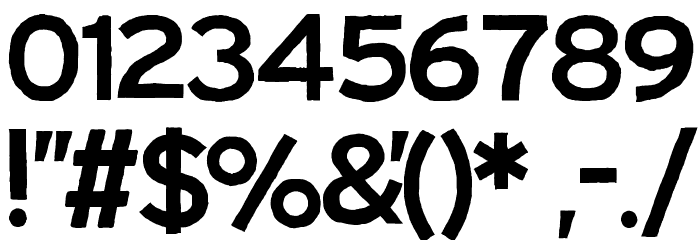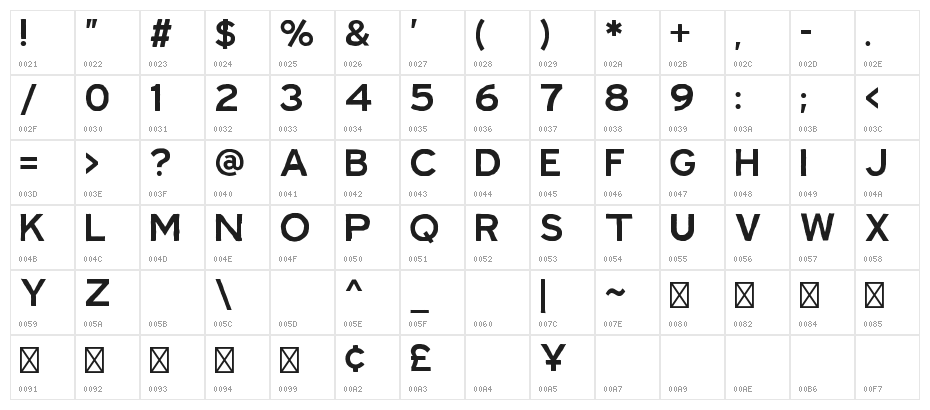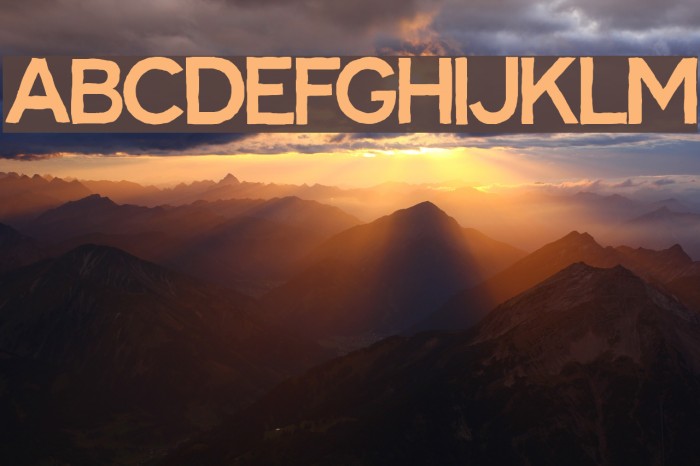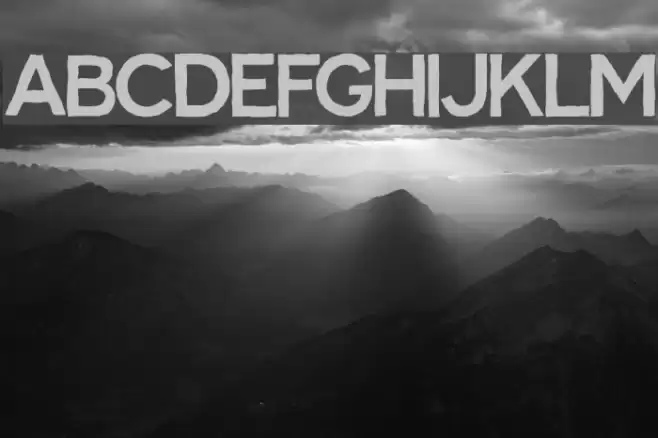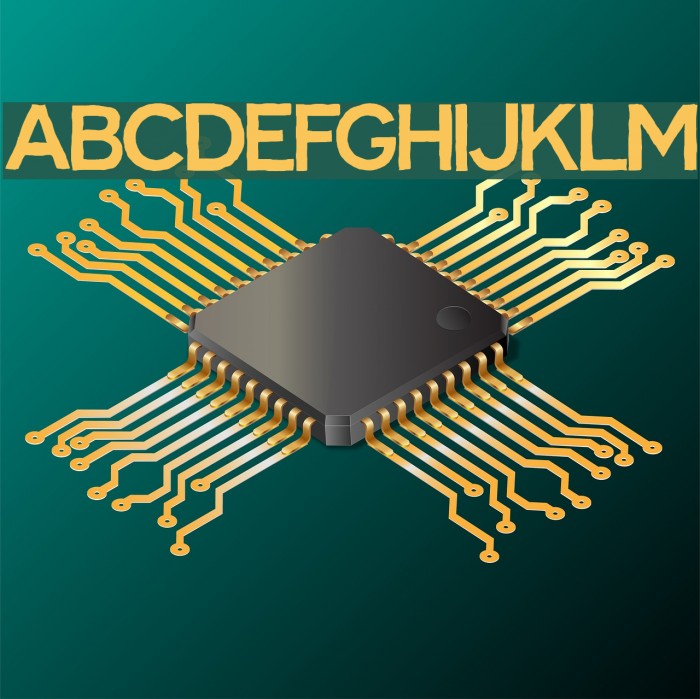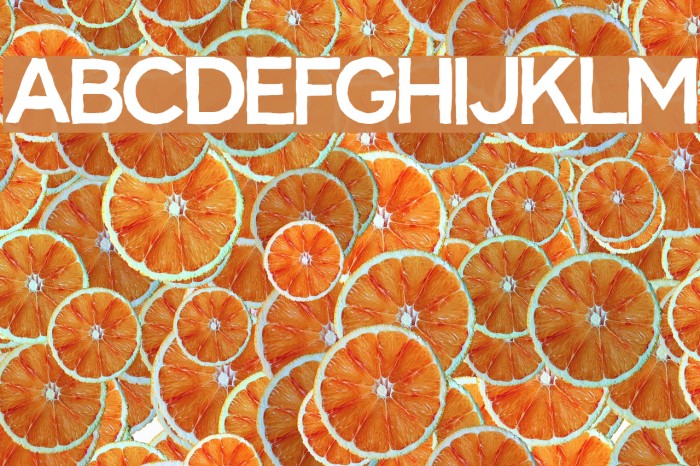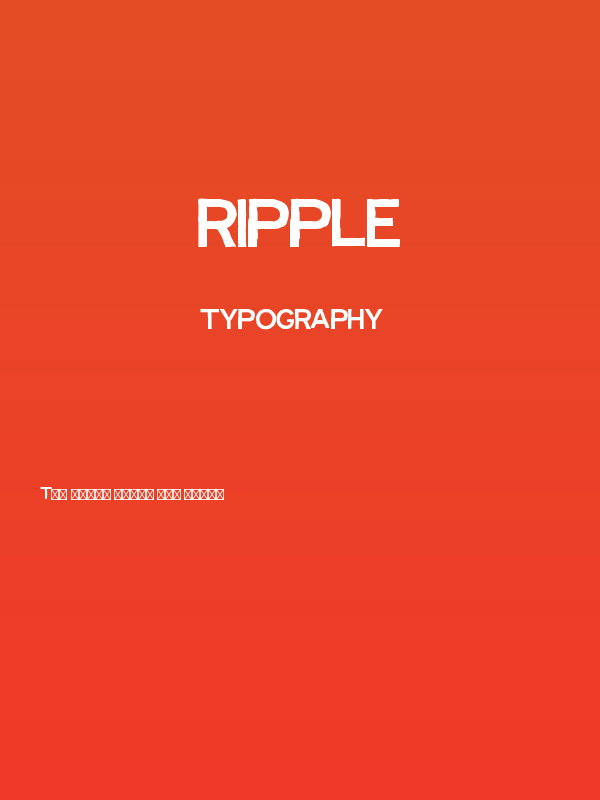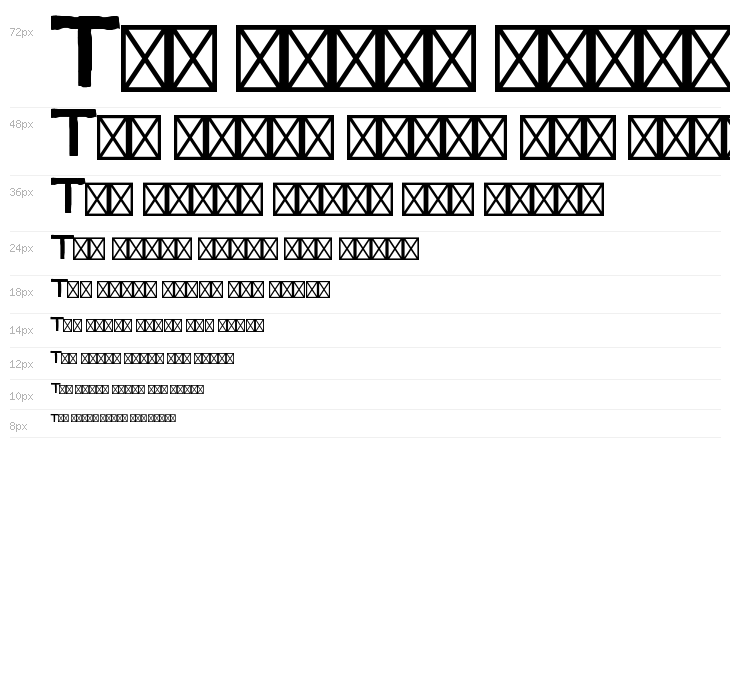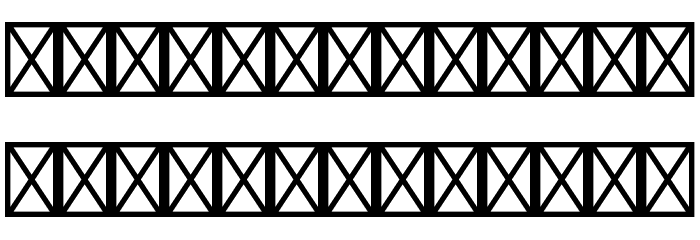
Ripple Font
Ripple Description
This font features a bold and rugged design with a hand-drawn aesthetic. The characters have a slightly irregular, organic feel, giving them a unique and dynamic appearance. The uppercase letters are prominent and assertive, while the numerals and special characters maintain the same boldness and style. The font's overall look is playful yet strong, making it suitable for projects that require a touch of personality and creativity. The strokes are thick and consistent, providing a solid presence on the page.
Proposed ProjectsIdeal for posters, branding, headlines, and any design needing a bold, creative touch.